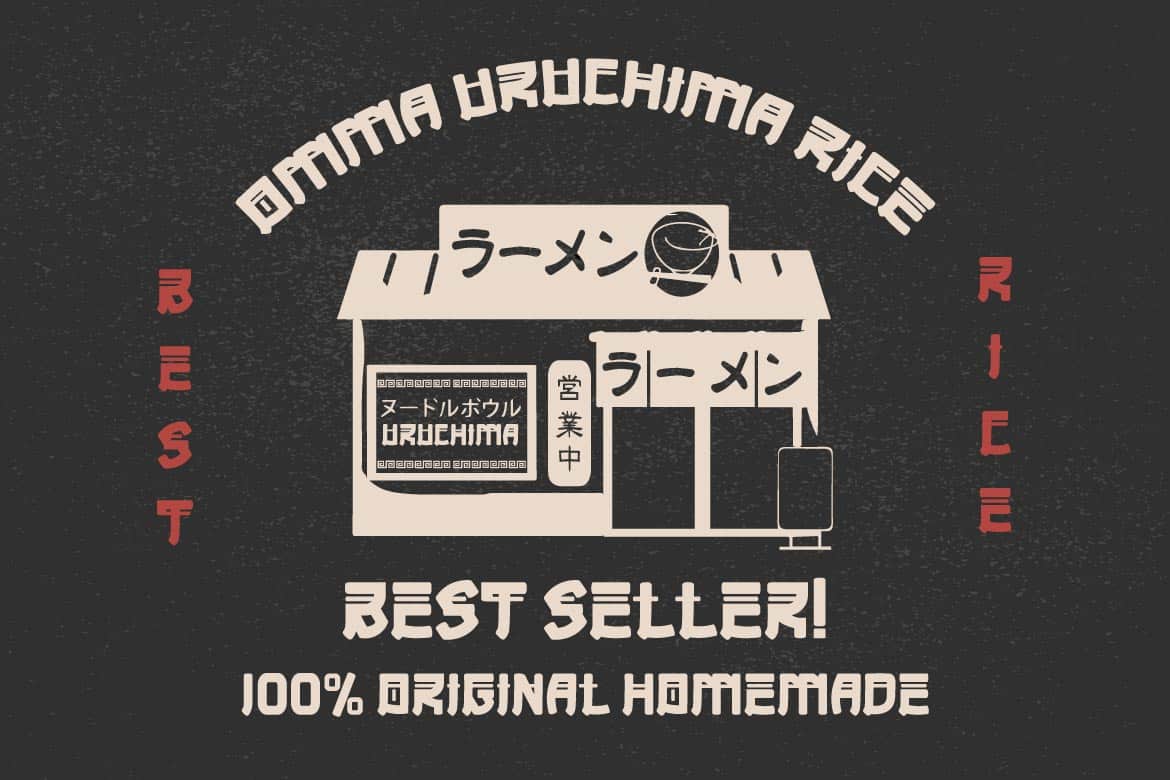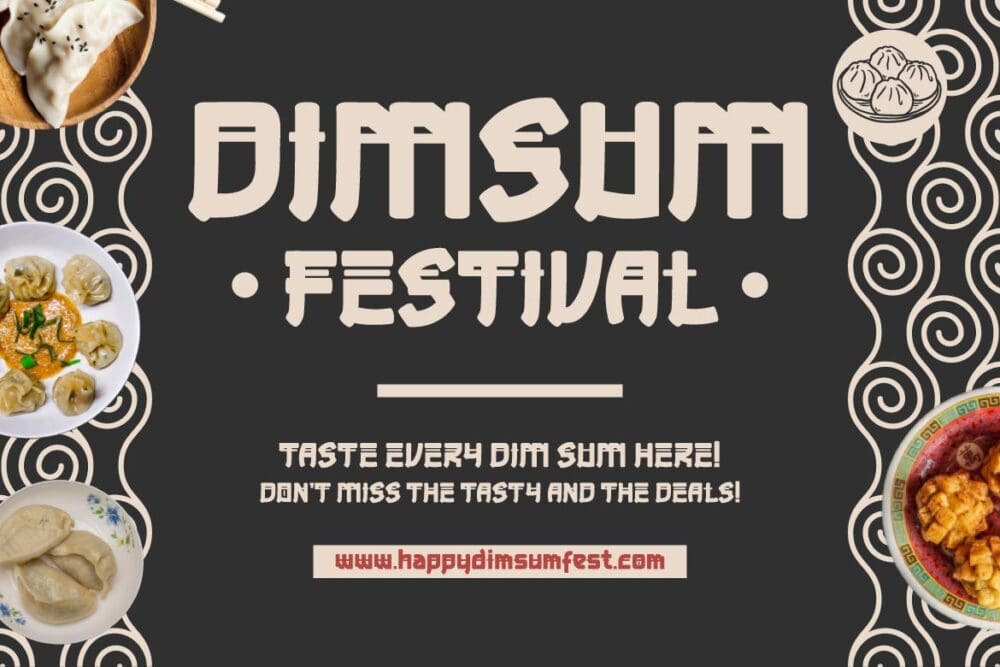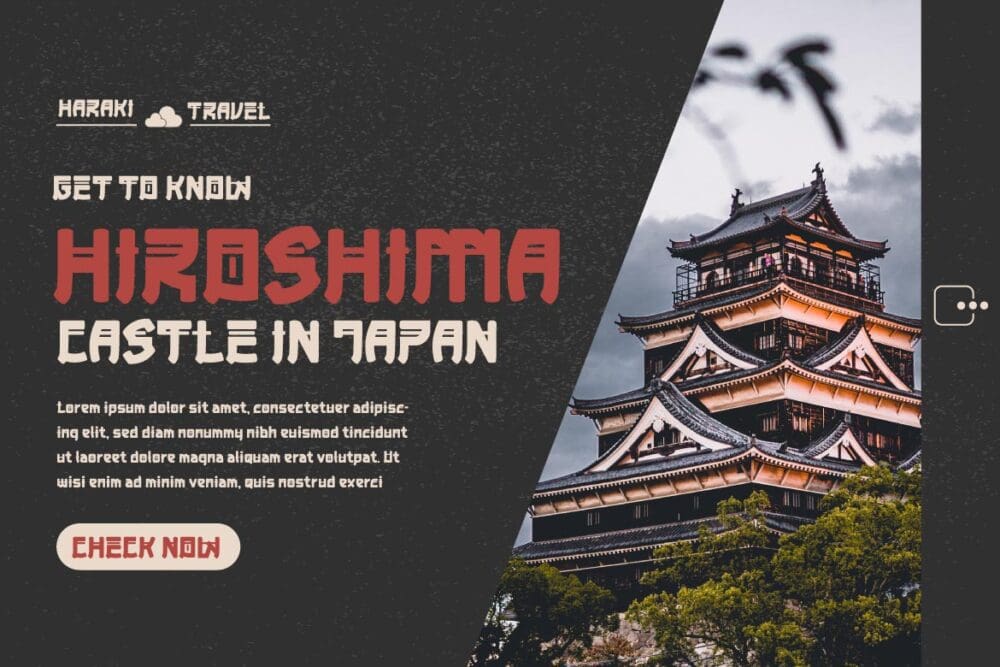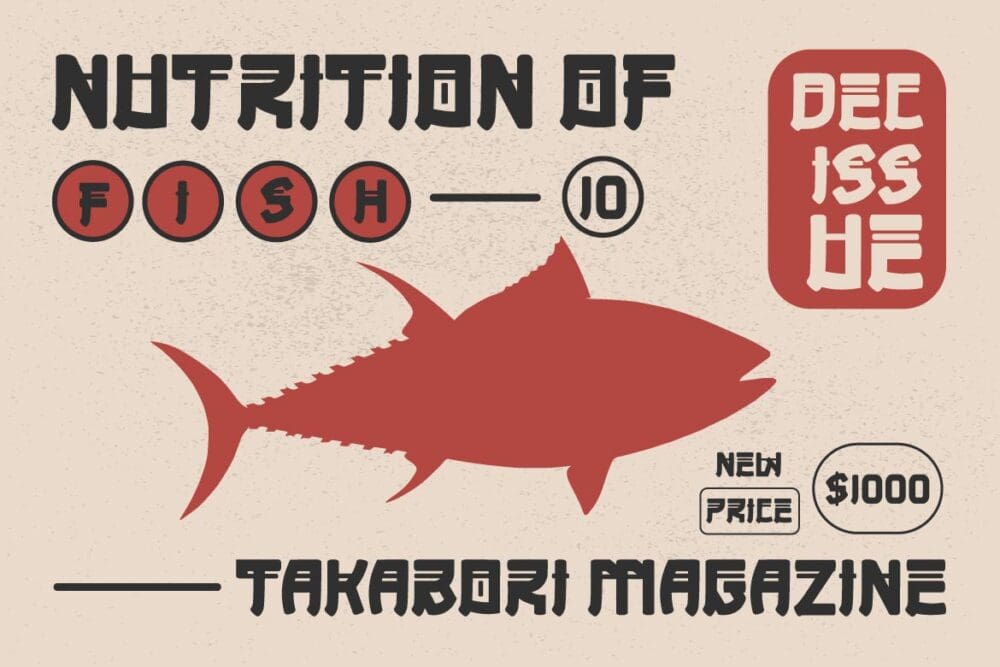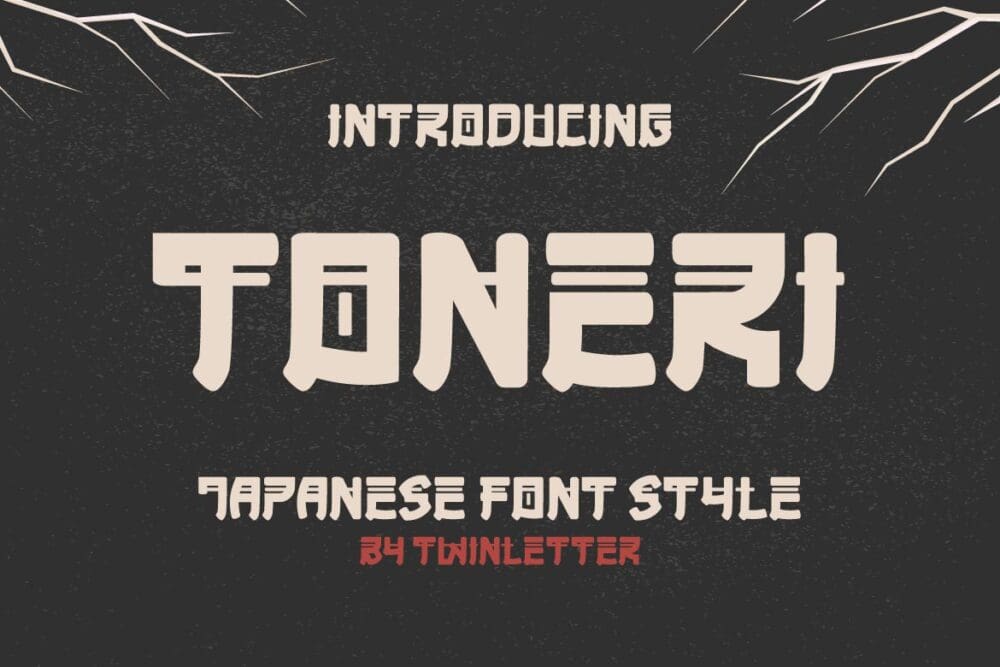
Toneri Font
TONERI is a Japanese-style display font with thick and strong characters, giving it a valiant appearance. If you use this font, your project will automatically become strong and conspicuous in the various media you use, your project will appear elegant, have a distinct character, and always stand out.